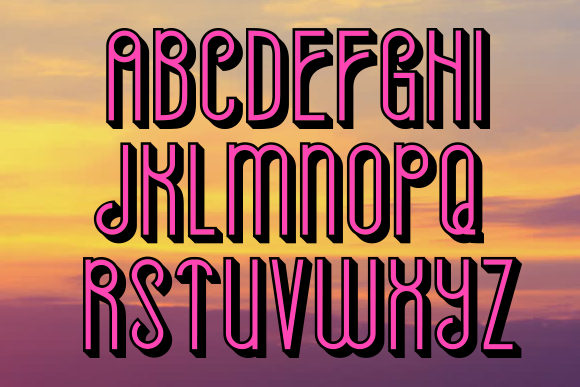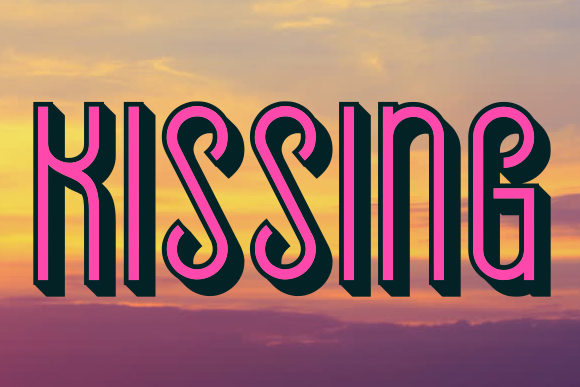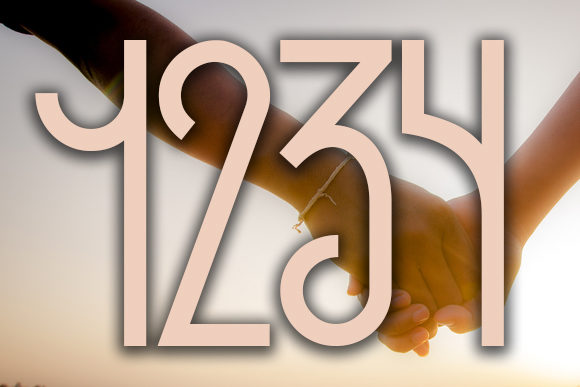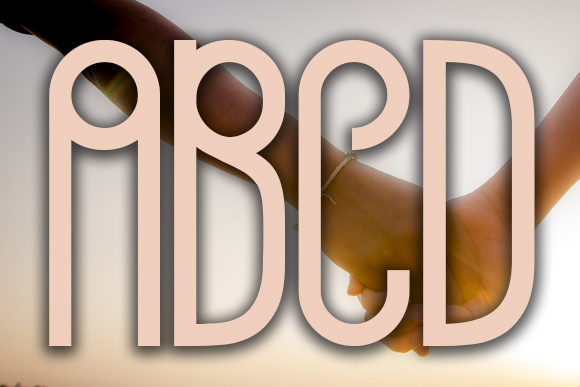
Introducing Already Font: The Ultimate Retro Font for Stunning Designs
Are you a designer or crafter looking for a font that can add a touch of vintage glamour to your designs? Look no further than Already Font, an awesome retro font family with a bold, Art Deco feel that’s sure to turn any design idea into a standout. In this article, we’ll explore the features and benefits of Already Font, and show you how to make the most of its vintage aesthetic.
The Art Deco Inspiration
Already Font is inspired by the opulent style of the Roaring Twenties, with its bold lines, geometric shapes, and metallic accents. The font’s Art Deco feel is perfect for designers who want to add a touch of luxury and sophistication to their designs. Whether you’re working on a branding project, a packaging design, or a digital graphic, Already Font is the perfect choice.
Key Features of Already Font
- Bold and eye-catching: Already Font is designed to make a statement, with its bold lines and geometric shapes.
- Art Deco feel: The font’s vintage aesthetic is inspired by the opulent style of the Roaring Twenties.
- Versatile: Already Font can be used for a wide range of design projects, from branding and packaging to digital graphics and more.
How to Use Already Font in Your Designs
Already Font is a versatile font that can be used in a wide range of design projects. Here are a few ideas to get you started:
- Branding: Use Already Font to create a bold and eye-catching logo that will help your brand stand out.
- Packaging: Add a touch of vintage glamour to your packaging designs with Already Font.
- Digital graphics: Use Already Font to create stunning digital graphics, such as social media posts, flyers, and more.
Tips for Getting the Most Out of Already Font
Here are a few tips for getting the most out of Already Font:
- Experiment with different colors: Already Font looks great in a wide range of colors, from metallic gold and silver to bold brights.
- Play with texture: Add texture to your designs with Already Font, such as metallic foil or glitter.
- Mix and match: Combine Already Font with other fonts and graphics to create a unique and eye-catching design.
Already Font is a powerful tool for designers and crafters who want to add a touch of vintage glamour to their designs. With its bold, Art Deco feel and versatile design, Already Font is the perfect choice for a wide range of design projects. Whether you’re working on a branding project, a packaging design, or a digital graphic, Already Font is sure to turn your design idea into a standout. So why wait? Download Already Font today and start creating stunning designs that will leave a lasting impression.